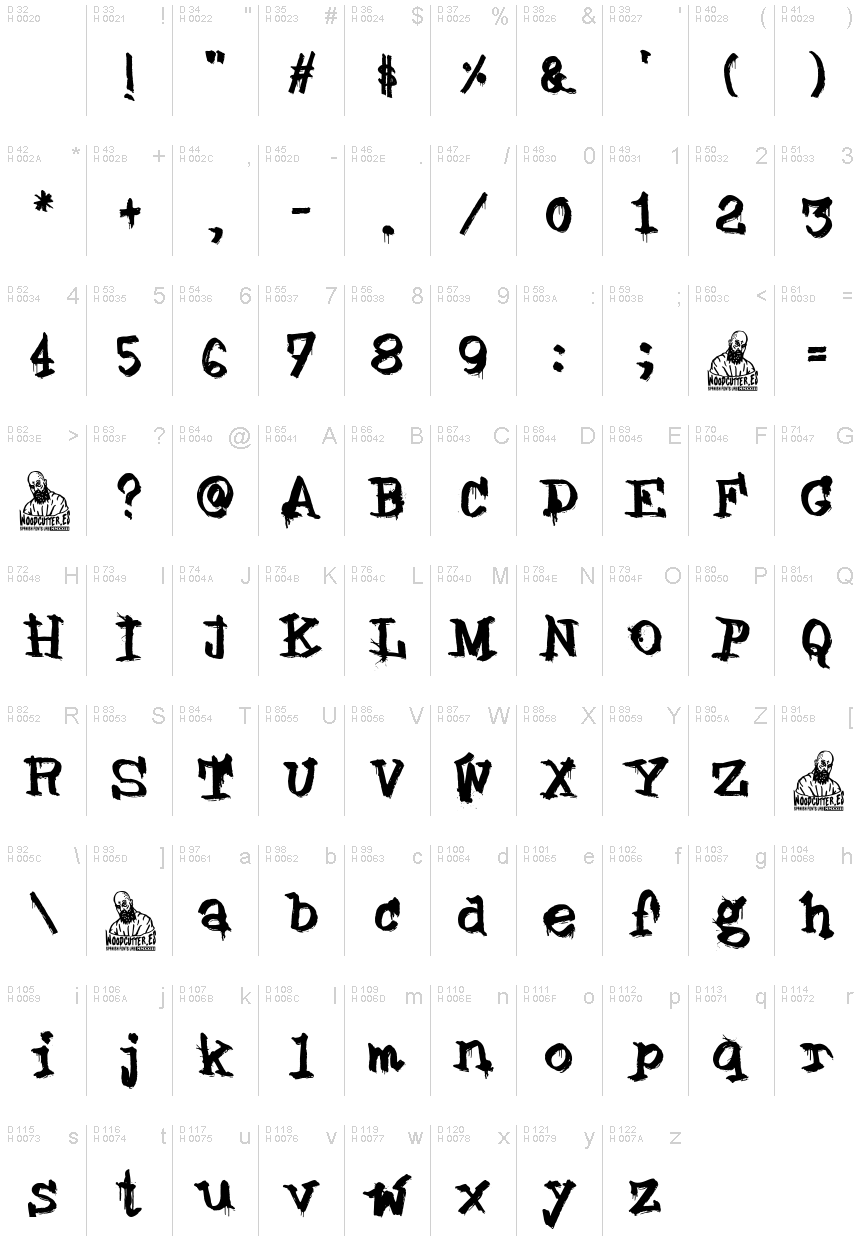
Carnage In The Office
Carnage In The Office, crafted by Woodcutter, exudes a chilling presence that commands attention. Its jagged contours and irregular forms appear as though they've been etched in haste or distress, giving it an undeniably spooky vibe. This display font's bold strokes evoke images of a thriller's title sequence or the dark corners of a mystery novel.
Its dramatic flair makes it perfect for projects needing a touch of horror or suspense, such as book covers, Halloween event promotions, and edgy branding campaigns. Carnage In The Office sets the scene for an unsettling narrative where design meets trepidation.